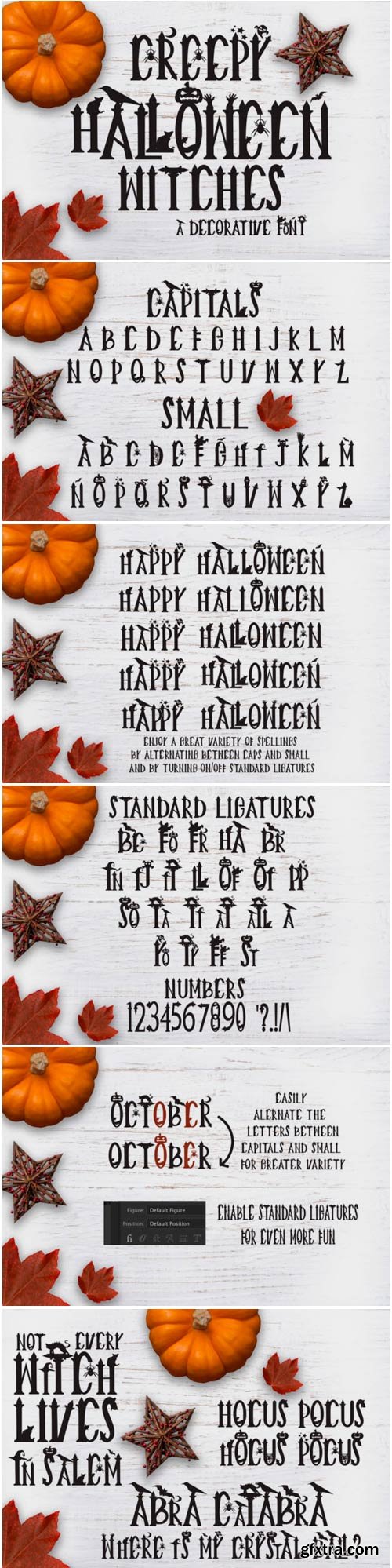
Creepy Halloween Witches Font
With its wide range of creepy Halloween-inspired details, Creepy Halloween Witches is the ultimate Halloween display font.